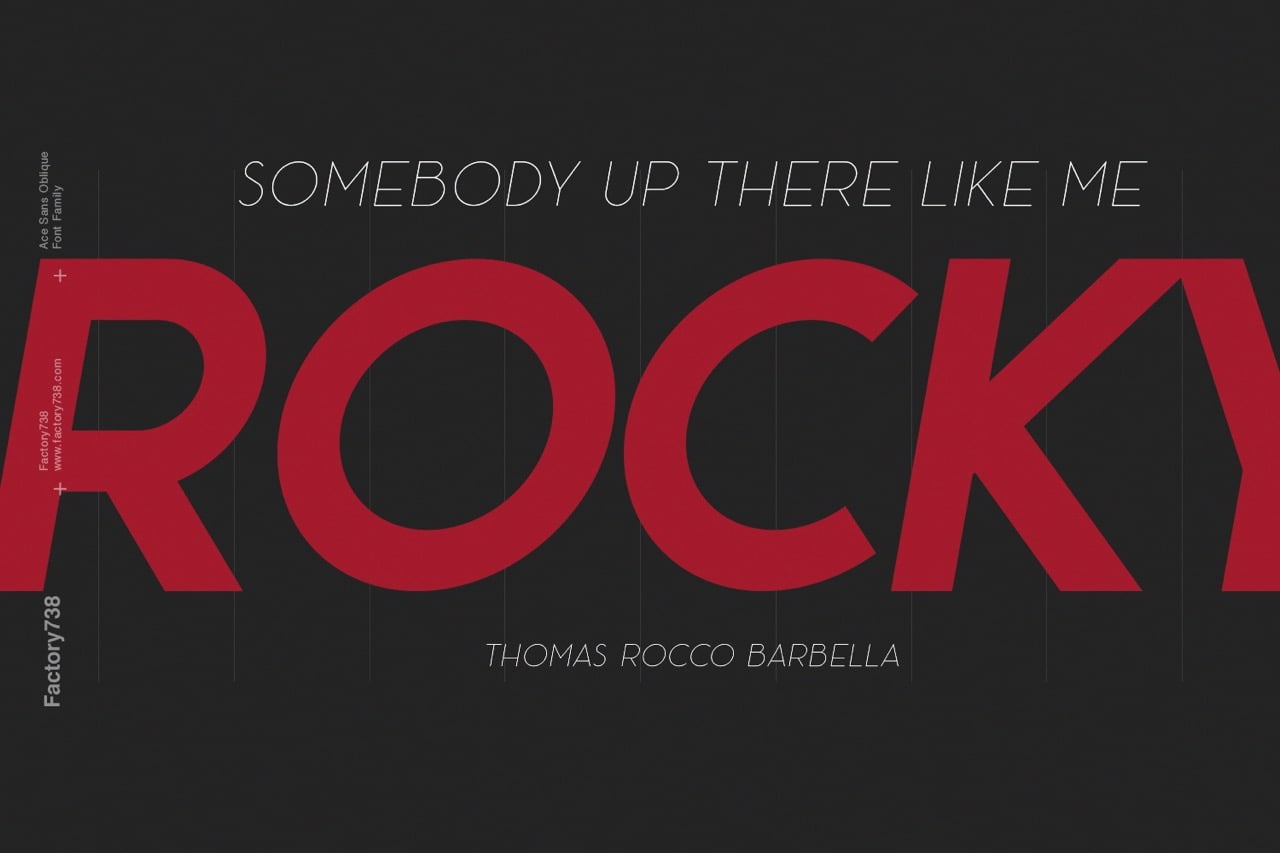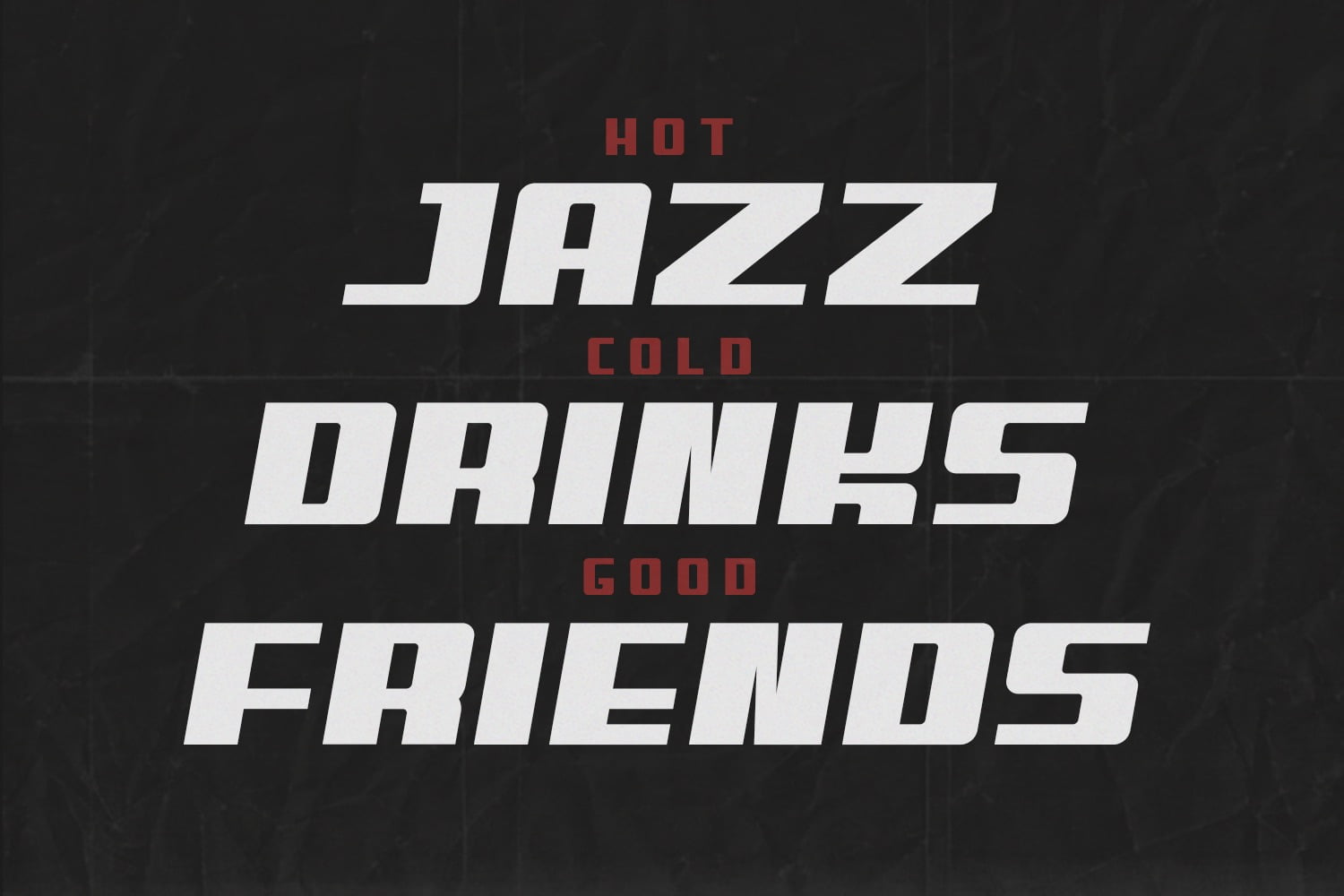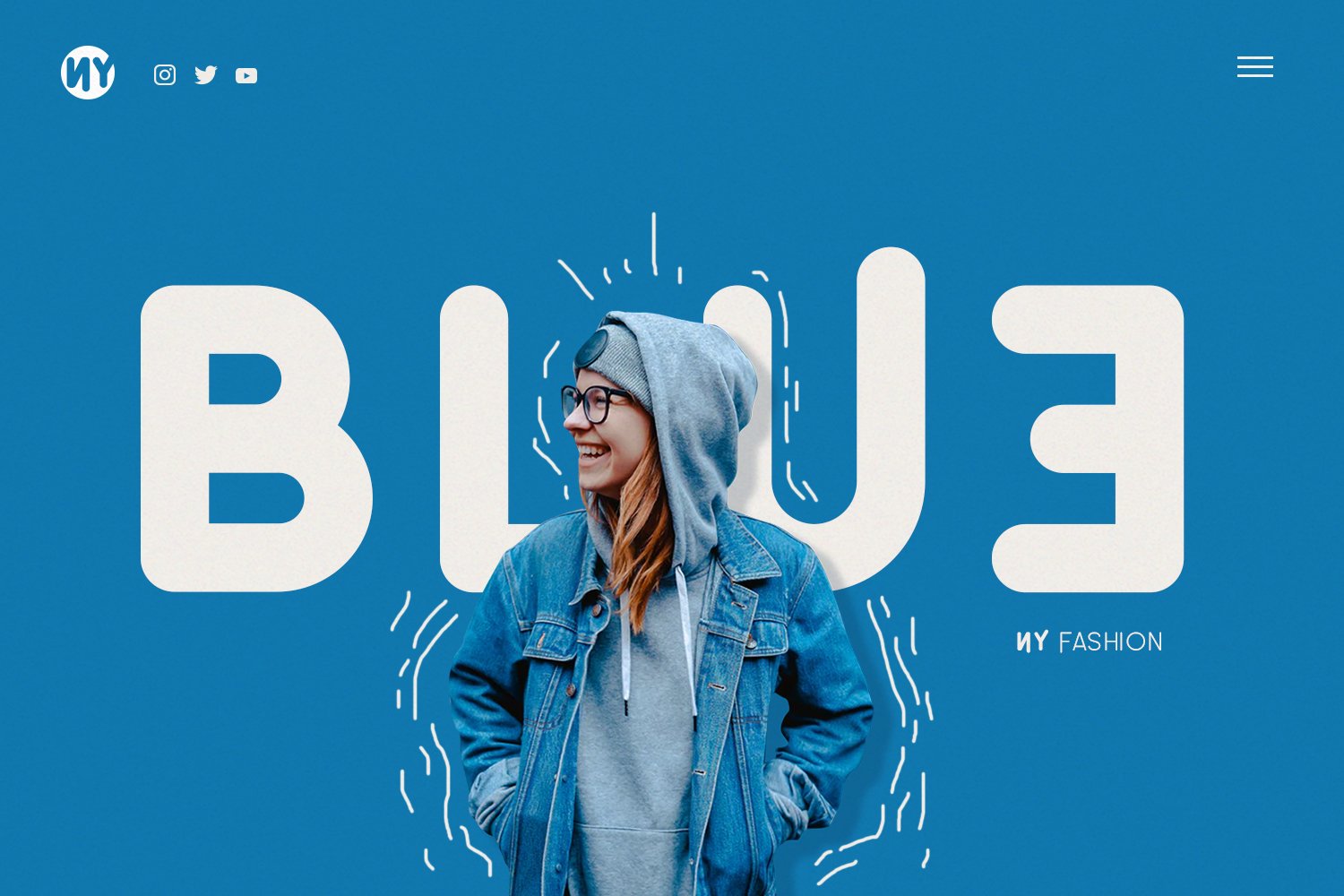
Unleash the Power of Minimalist Fonts for Your Next Design Project
Are you tired of using flashy fonts that distract from your design message? It’s time to unleash the power of minimalist fonts! In this blog post, we’ll explore the benefits of using clean and simple typography in your next design project. You’ll be amazed at how effective this design trend can be!
Leo Rounded Sans
The Importance of Minimalist Fonts for Logo Design
Simplicity is key when it comes to creating a powerful logo. By using a minimalist font, a logo can be easily recognized and stand out. Minimalism means stripping down design elements to what’s really important, instead of trying to put everything in. Minimalist fonts are simple, clean, and easy to read. They give off a sense of sophistication and elegance that can make a brand’s image more elevated. They can make a logo appear timeless and classic, which will make it more memorable to people. This is helpful when trying to communicate the message of the brand and leave a lasting impression on customers.
Choosing the right font for a logo is important. A busy or ornate font can make the design look cluttered and hard to read. On the other hand, a minimalist font can give the logo clarity and calmness. This makes it easier for people to focus on the brand’s message. Minimalist fonts are versatile and can be used for various branding materials like business cards, websites, packaging, and advertisements. They can be made bigger or smaller without losing their legibility, which means they will look great no matter what size or format they’re in.
In conclusion, choosing a minimalist font for a logo is a smart decision for any business. It gives off sophistication, elegance, and timelessness, which makes it more memorable for people. By focusing on simplicity and restraint, a graphic designer can choose the perfect minimalist font for their project and create an iconic logo that will have a lasting impact.
Ace Sans
How to Choose the Right Minimalist Font for Your Project
Choosing the right font is crucial when it comes to minimalist design. A clean and minimal font can make all the difference in creating a stylish and effective design. Here are some tips to help you choose the perfect minimalist font for your project.
Before you start selecting fonts, it’s important to understand the key principles of minimalist design. Minimalism is all about simplicity, clarity, and restraint. When it comes to typography, this means selecting a font that is clean, straightforward, and easy to read. Avoid fonts that are too ornate, busy, or difficult to read. Stick with a simple, streamlined font that will convey your message clearly and effectively.
When selecting a minimalist font, there are several factors to consider. Consider the tone and style of your project. Is it modern and sleek, or classic and traditional? Select a font that matches the tone and style of your project. Pay attention to the font’s legibility. Is it easy to read at different sizes? Will it be effective for both headlines and body copy? Stick with Sans Serif fonts. These fonts are clean, modern, and easy to read. They are a popular choice for minimalist design. Experiment with font weights and styles. Many minimalist fonts come in a variety of weights and styles, such as bold, italic, and light. Play around with different combinations to find the perfect look for your project. Avoid trendy fonts. While it may be tempting to use the latest trendy font, it’s important to choose a font that will still look stylish and effective years down the line.
By following these tips and keeping the principles of minimalist design in mind, you can select the perfect font for your next project. A clean and minimal font will help you create a stylish and effective design that will stand the test of time.
Benn Sport Sans
Top 10 Best Minimalist Fonts for Logo Design
Minimalist fonts are a great way to convey simplicity, elegance, and sophistication in your logo design. Here are our top 10 picks for the best minimalist fonts:
1. Ace Sans
2. Leo Sans
3. Leo Rounded Sans
4. Opera Sans
5. LiteOn Sans
6. Beckman Sans
7. Benn Sans
8. Vaughan Sans
9. Reiju Feminine Font
10. Ichiji Futuristic Font
In conclusion, using minimalist fonts in your next design project can help to create a powerful and iconic logo. By distilling design elements down to their most essential components, you can create a clean and polished design that truly stands out. When selecting a minimalist font, focus on simplicity and restraint, and choose a font that is clean and straightforward rather than busy or ornate. With the right minimalist font, you can create a logo with lasting power and impact. So why not unleash the power of minimalist fonts in your next design project? Check out the best minimalist fonts we’ve shared above, and take your design to the next level!